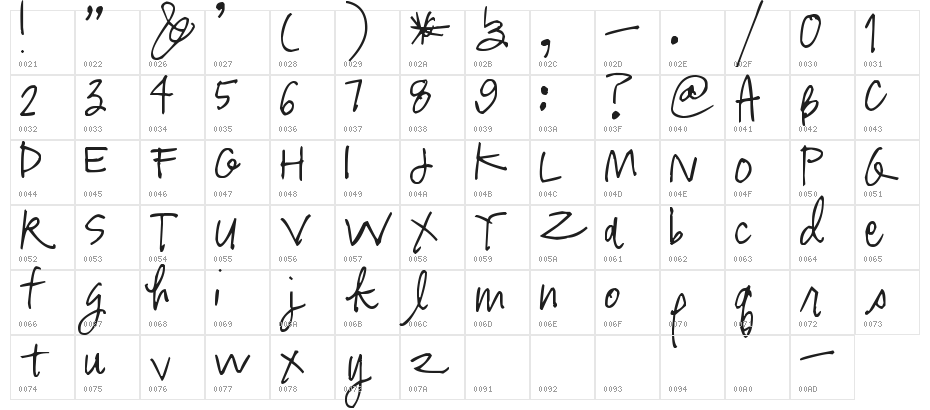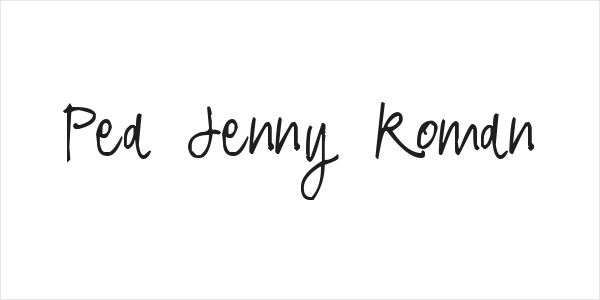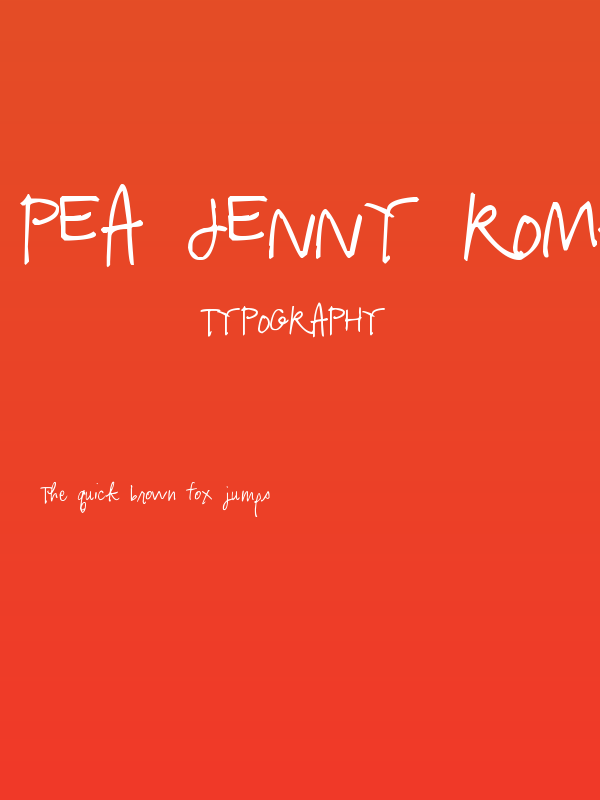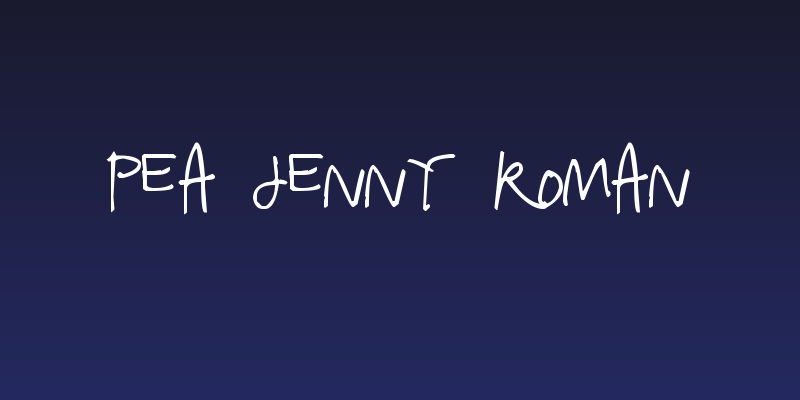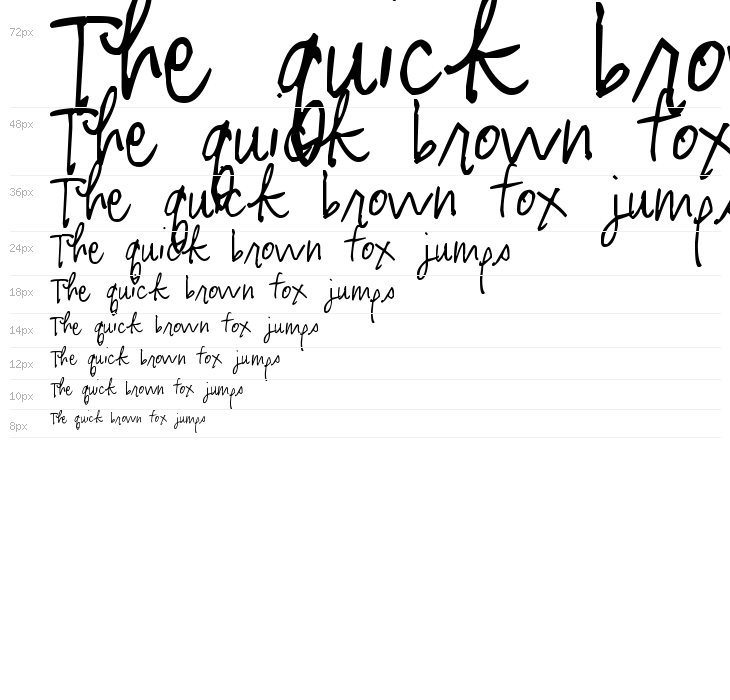
Pea Jenny Roman Font
Pea Jenny Roman Description
This font exudes a casual and playful handwritten style, characterized by its irregular and dynamic strokes. The letters are slightly slanted, giving it a personal and informal touch. The uppercase letters are bold and prominent, while the lowercase letters maintain a consistent flow with a touch of whimsy. Numbers and special characters follow the same lively and spontaneous design, making the font versatile for creative projects. The overall appearance is approachable and friendly, ideal for conveying a sense of warmth and personality.
| Use Case | Logos, Greeting cards, Informal invitations |
| Proposed Projects | Ideal for personal notes, greeting cards, informal invitations, and creative branding projects. |